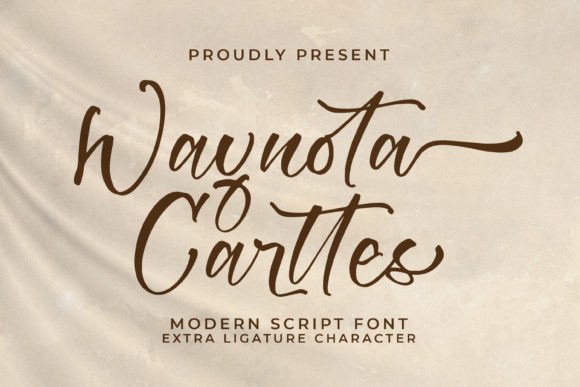
Step into the realm of artistic expression with Waynota Carttes, the handwritten font exuding elegance and charm. Its delicate swashes dance across your designs, creating a visual symphony that captivates the senses. A perfect match for those seeking a touch of vintage allure, this font adds a timeless charm to any project.
Embrace the artistry of Waynota Carttes, a script font that weaves a tale of nostalgia and modern elegance. Each letter, meticulously crafted, carries a weight of history, evoking memories of handwritten letters and the warmth of personal correspondence. Its beautiful curves and flourishes add a touch of whimsy, making it an ideal choice for branding, logos, and invitations.
With Waynota Carttes, you'll embark on a creative journey, transforming your digital dreams into tangible masterpieces. Its versatility shines through in both print and web designs, making it a true font chameleon, adapting seamlessly to your creative vision. Whether you're crafting logos that evoke a sense of heritage or designing wedding invitations that radiate romance, Waynota Carttes will elevate your work to new heights.
Immerse yourself in the world of Waynota Carttes, a font crafted with passion and precision. Each character carries a unique personality, adding depth and charm to your designs. Unleash your creativity and let the flowing lines of Waynota Carttes guide you towards exceptional designs that leave a lasting impression.